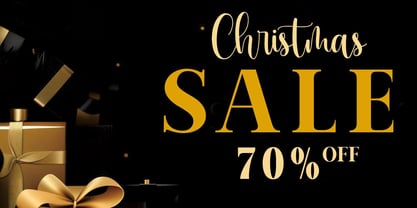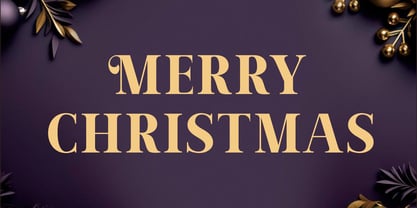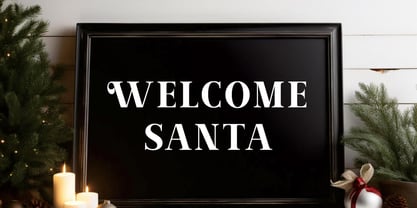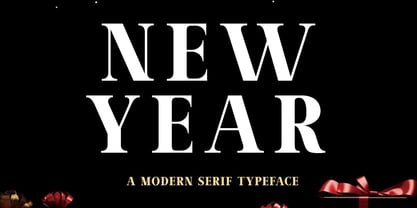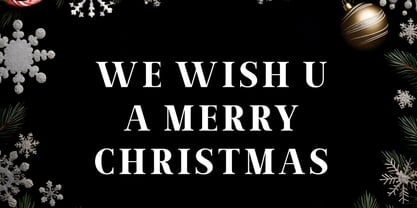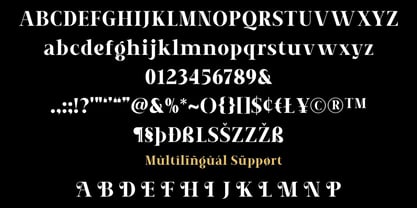
UM New Year
by Unitype Studio
The UM New Year Font Family was designed by Faizul Muna and published by Unitype Studio. UM New Year contains 2 styles and family package options. More about this family
New Year – Festive Holiday Serif Font
New Year is a captivating serif font designed to celebrate the warmth and joy of the holiday season. With its elegant serif details and timeless character, this typeface brings a festive and sophisticated touch to seasonal design projects.
Created especially for holiday-themed designs, New Year combines classic serif elegance with a charming winter aesthetic. Its balanced letterforms and refined strokes help create typography that feels both festive and stylish.
The font includes two versatile styles: Regular and Oblique, giving designers the flexibility to craft dynamic and expressive compositions. The Regular style delivers a classic and polished look, while the Oblique style introduces a subtle sense of movement and personality to your typography.
New Year is perfect for a wide range of seasonal applications. Whether you’re designing Christmas cards, New Year greetings, winter promotions, or holiday decorations, this font adds warmth and festive charm to every project.
It also works beautifully for craft lettering, embroidery designs, Cricut projects, and holiday packaging, making it a great choice for designers and crafters alike. The elegant serif structure ensures readability while maintaining a decorative and celebratory style.
From seasonal sales banners and winter-themed posters to heartfelt greeting cards and festive invitations, New Year helps your designs stand out with joyful sophistication.
Key Features
Festive Holiday Serif Font
A stylish serif typeface inspired by winter celebrations and holiday joy.
2 Font Styles
Includes Regular and Oblique styles for flexible typography.
Elegant & Timeless Design
Classic serif details with a festive seasonal feel.
Perfect for Holiday Projects
Ideal for Christmas, Thanksgiving, and New Year designs.
Craft-Friendly Typography
Great for Cricut projects, crafts, and embroidery.
Multilingual Support
Extended character set for international design use.
Perfect For
• Christmas Cards
• New Year Greetings
• Holiday Decorations
• Seasonal Promotions & Discounts
• Winter Posters & Banners
• Craft & Cricut Projects
• Embroidery Designs
• Greeting Cards & Invitations
What’s Included
• New Year Regular
• New Year Oblique
New Year is a festive serif font designed to bring elegance and celebration to your seasonal typography. Its classic structure and charming holiday character make it perfect for designers who want to create warm, joyful, and memorable holiday designs.
Designers: Faizul Muna
Foundry: Unitype Studio